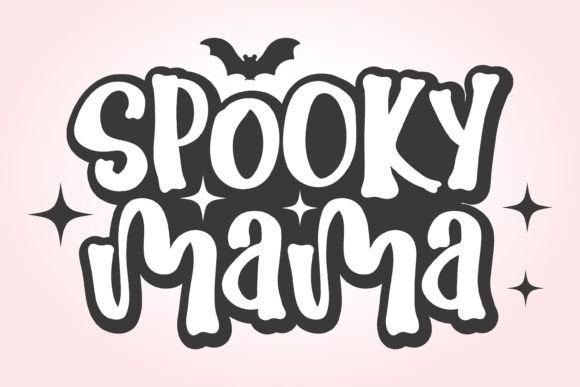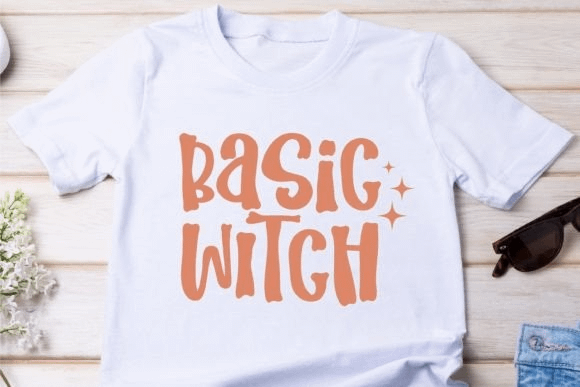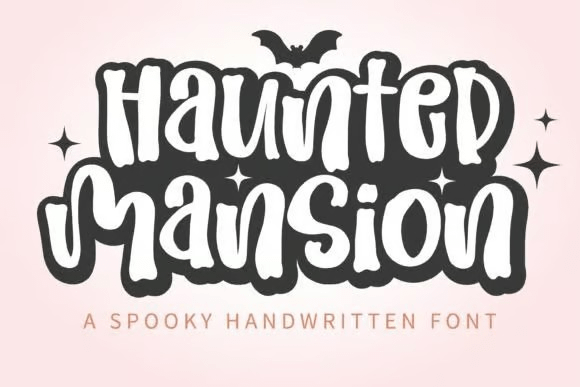
Haunted Mansion Font | Installable Font
Haunted Mansion is a spooky and fun Halloween font. It is perfect for any October project that requires a dramatic touch!